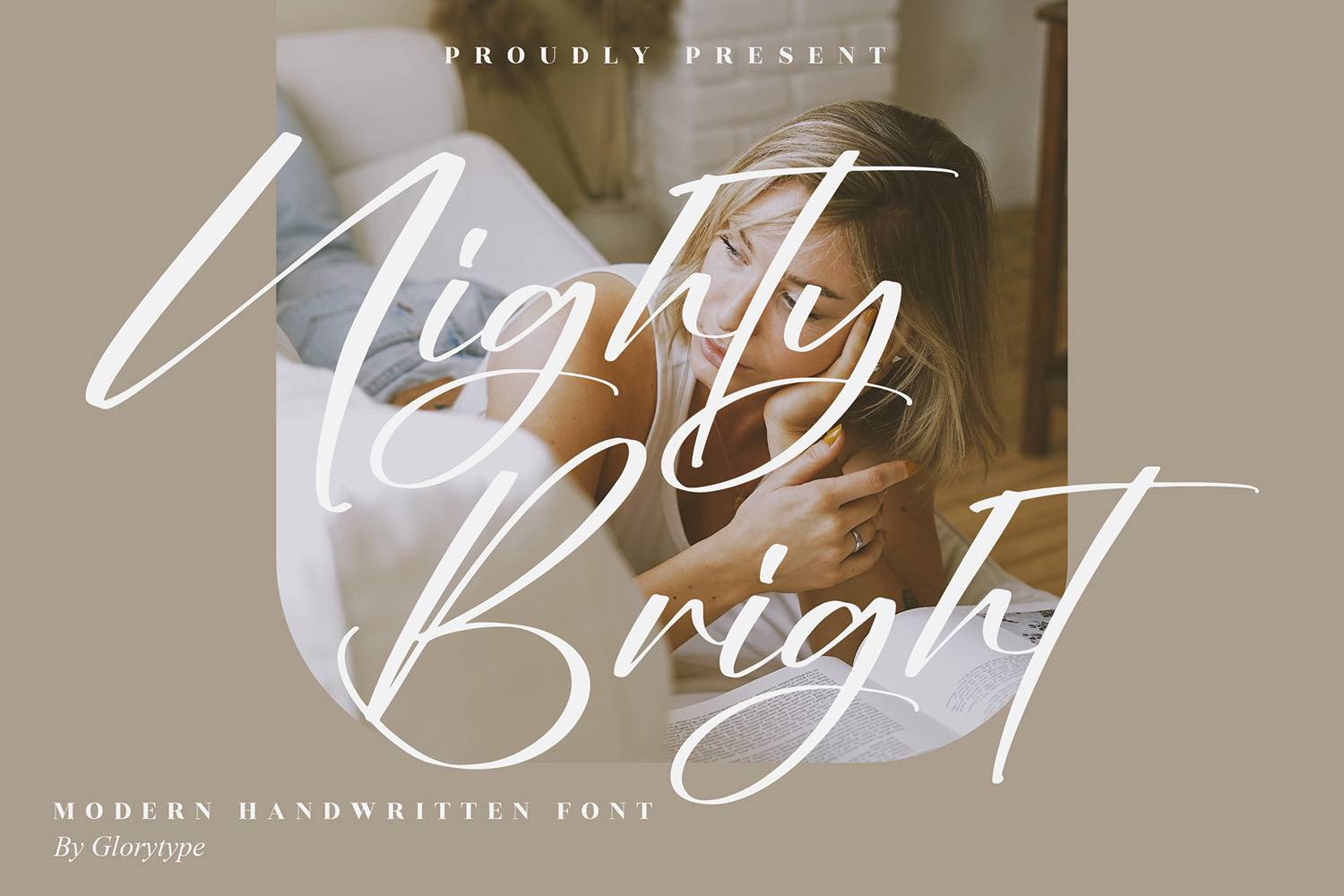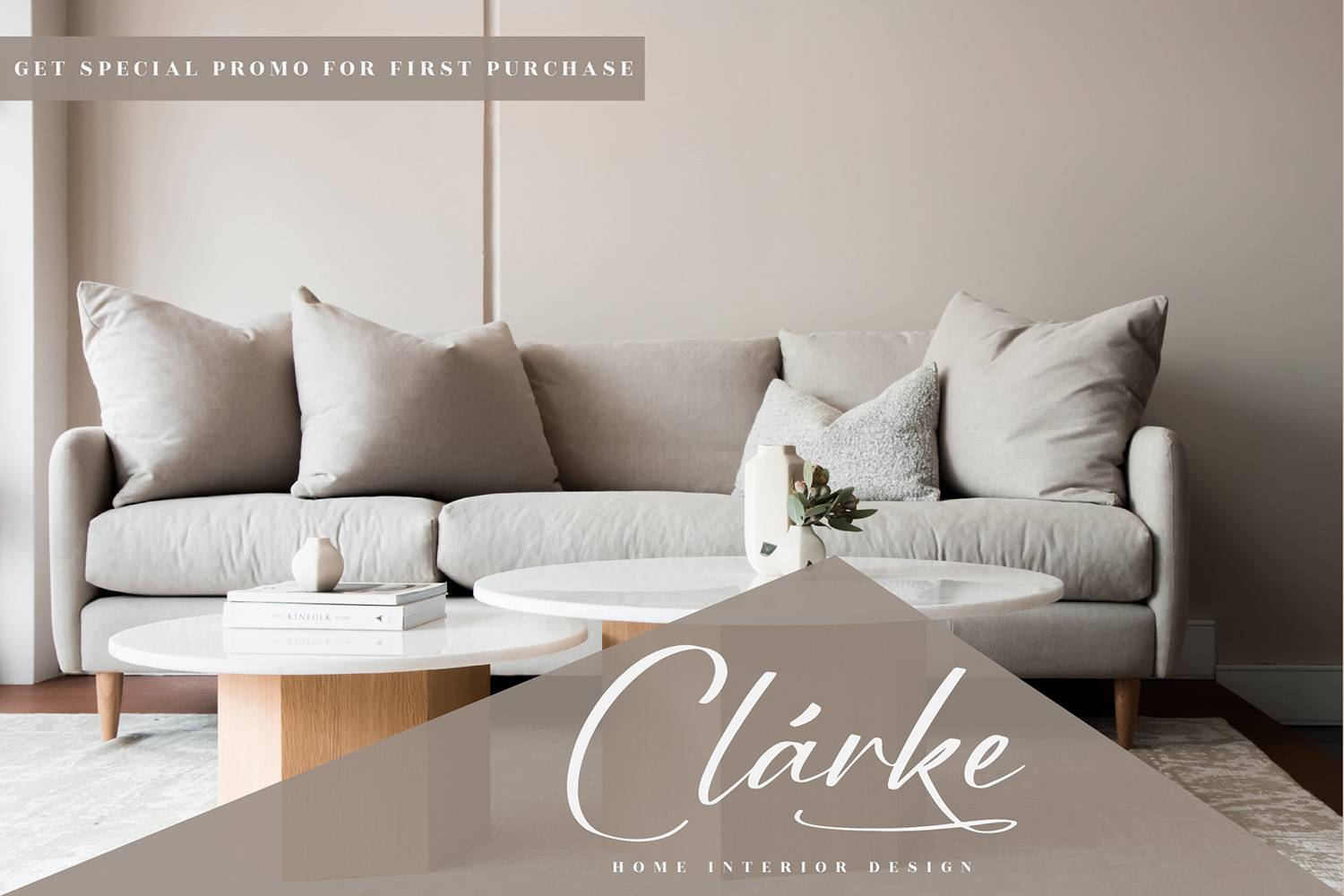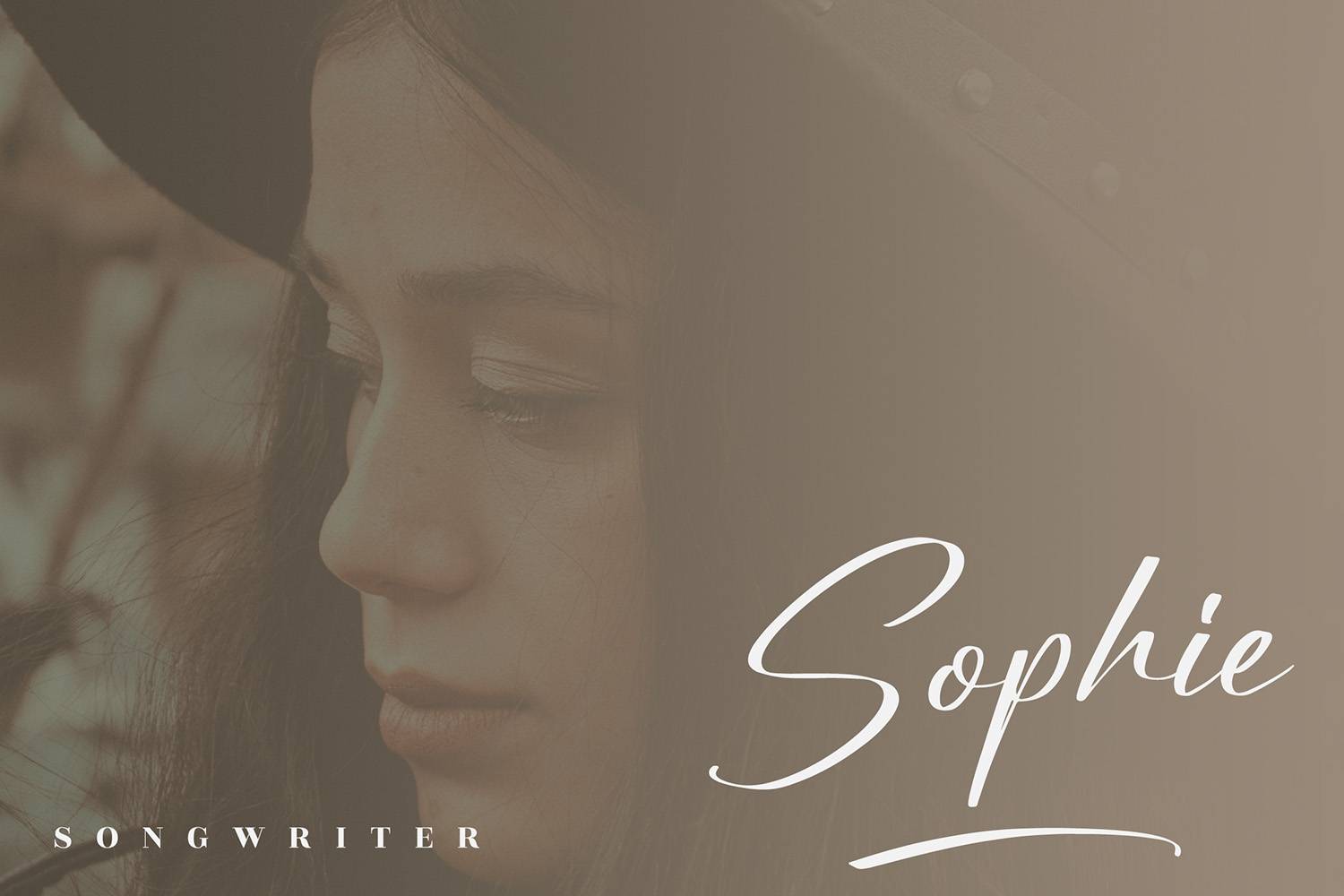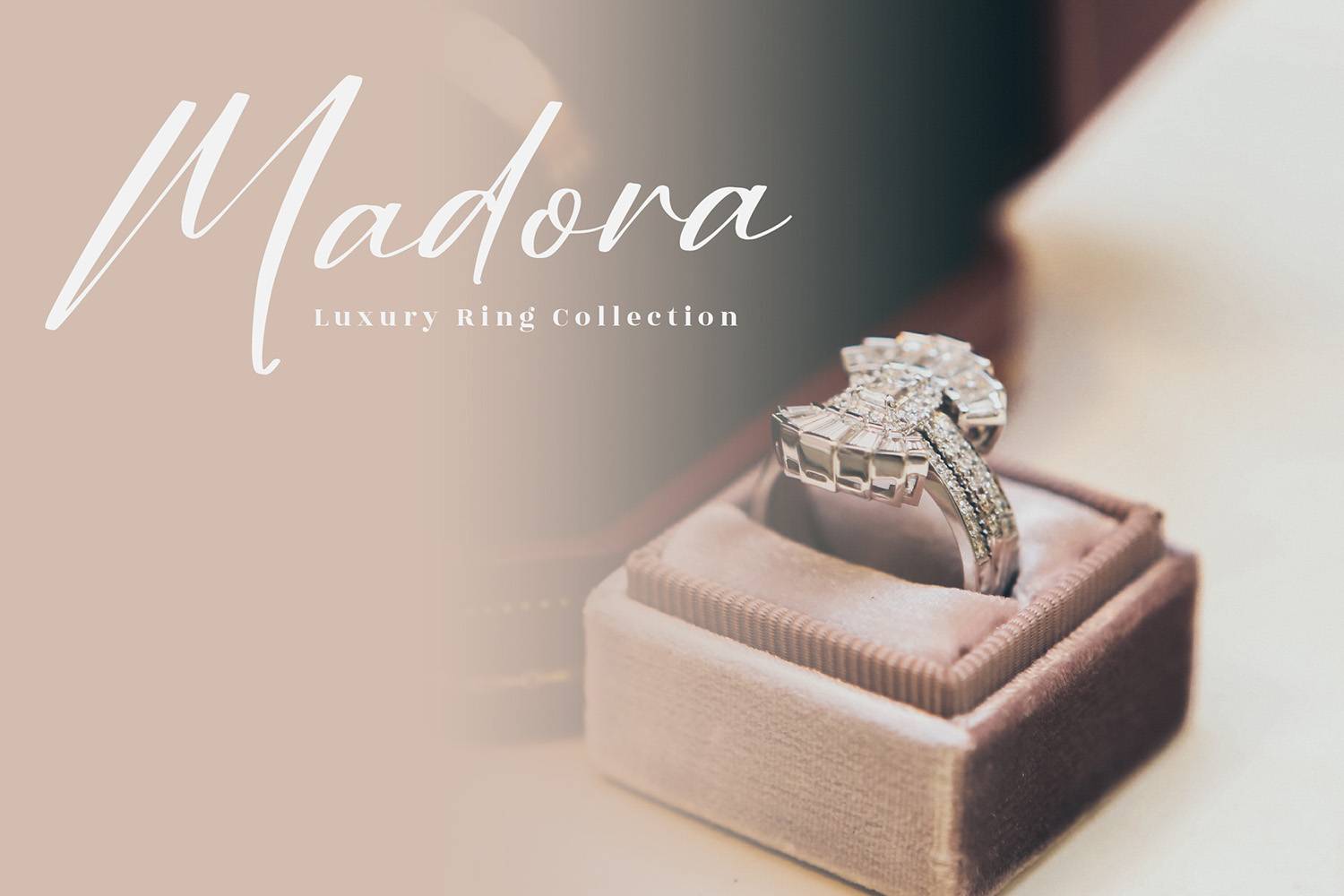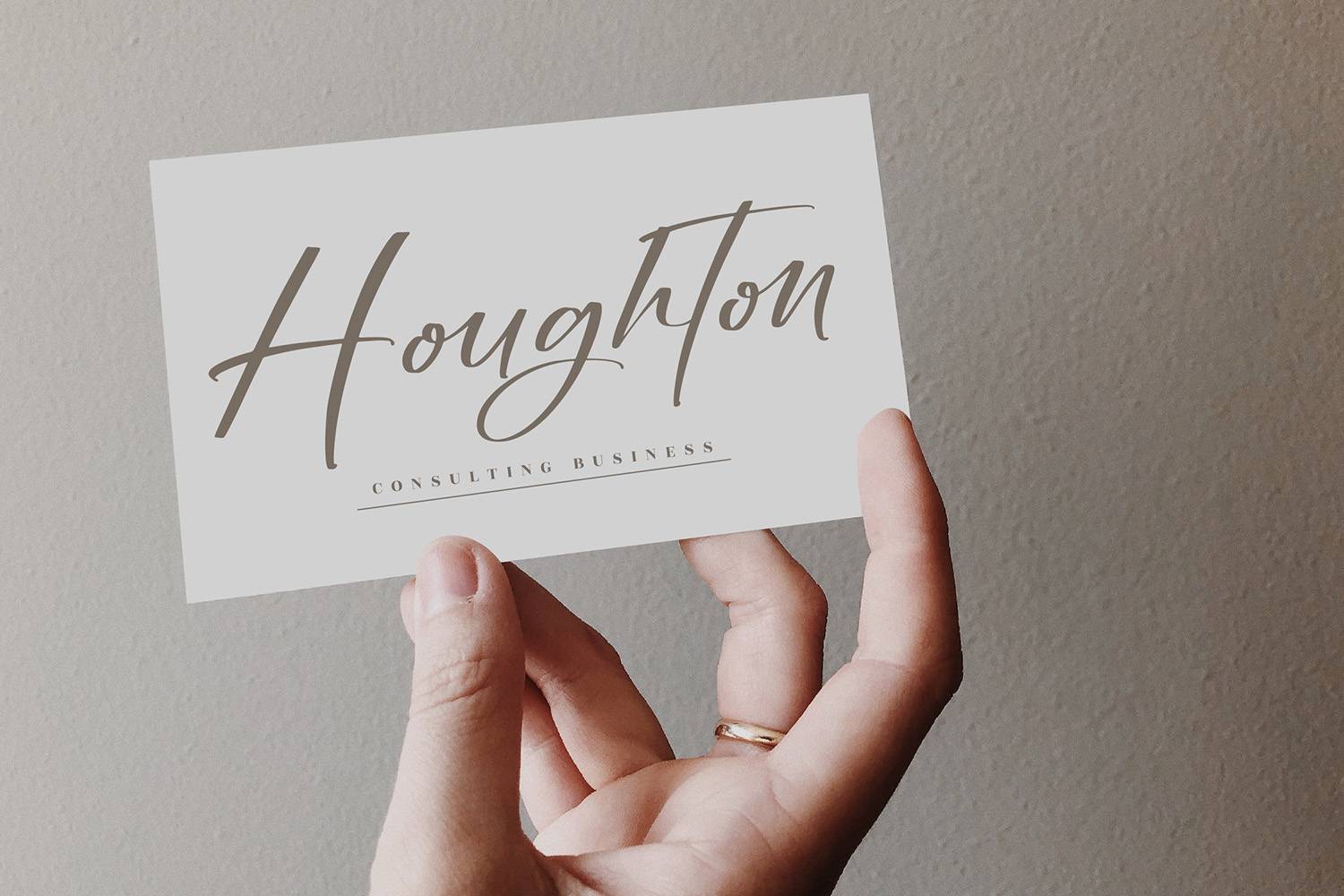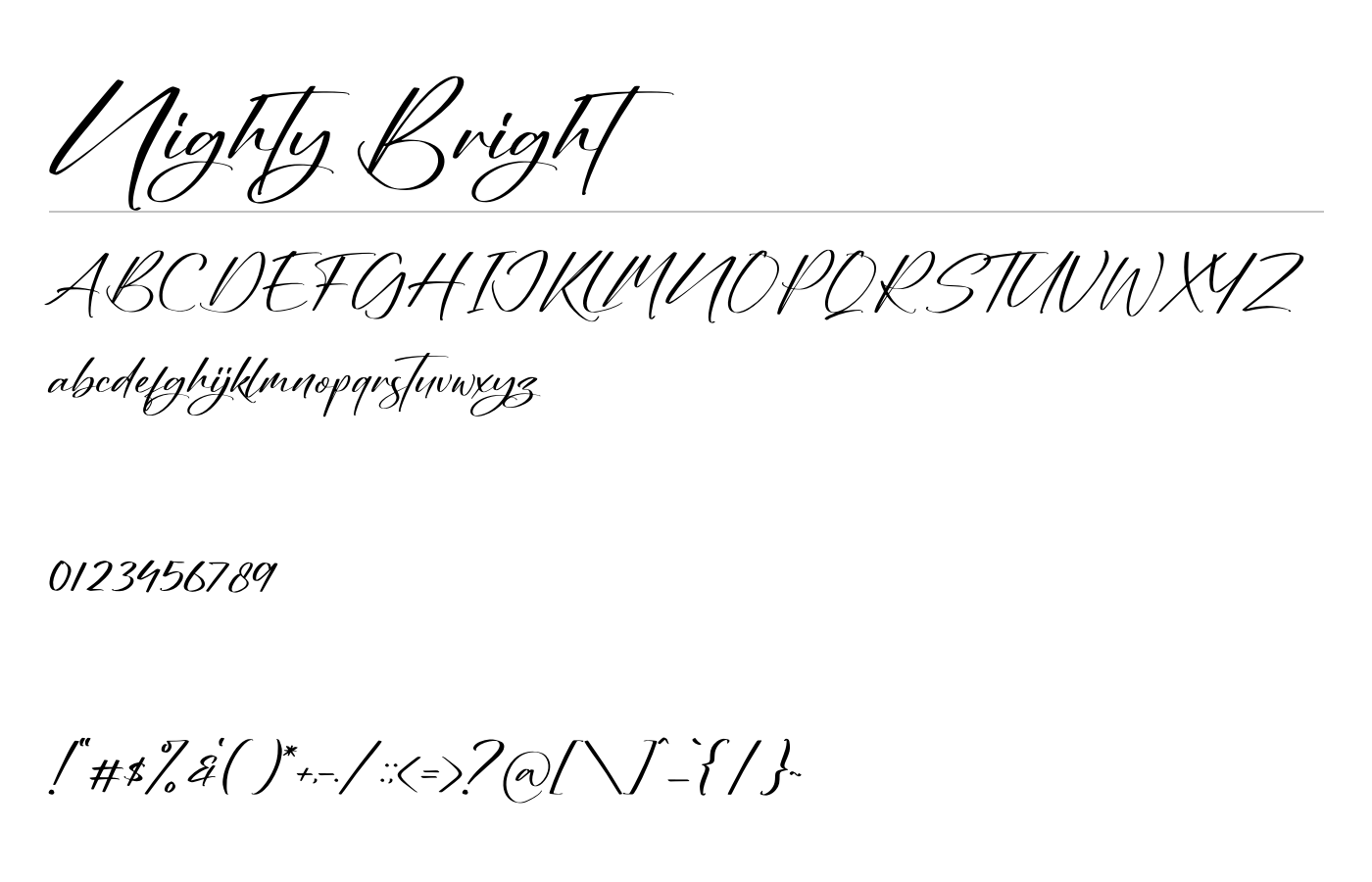
Nighty Bright is an elegant script font with a stylish, handwritten feel, featuring slender, fluid strokes and a delicate balance between thick and thin lines. Its tall, flowing letterforms and graceful curves make it ideal for luxury branding, wedding invitations, and sophisticated editorial headlines. This font conveys a sense of refinement and charm, perfect for adding a personal yet polished touch to your design projects.
Nighty Bright Font
About Nighty Bright Font